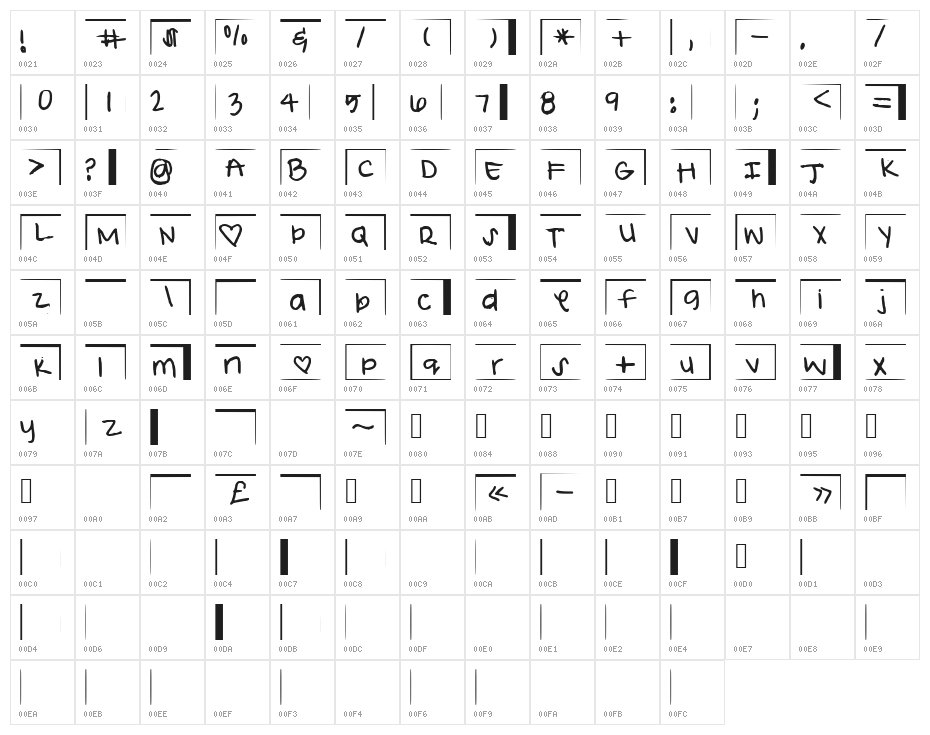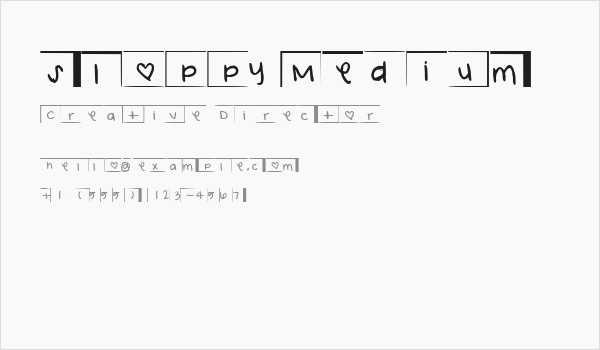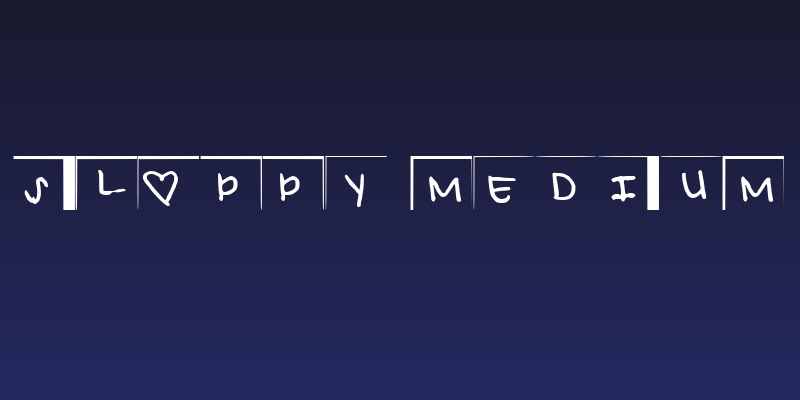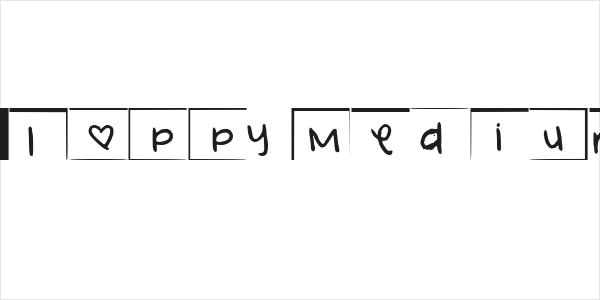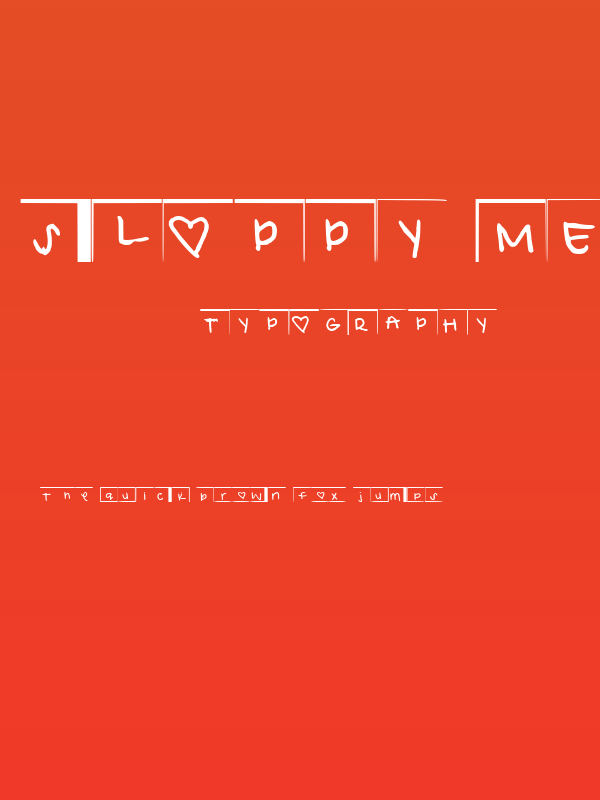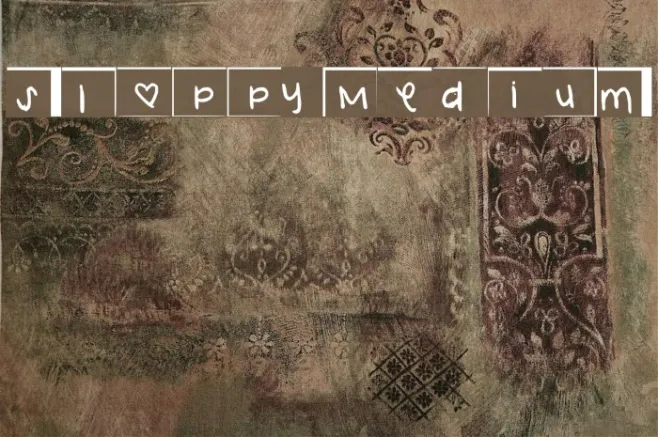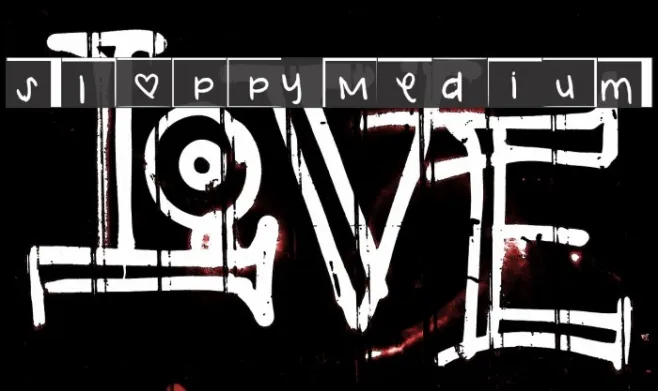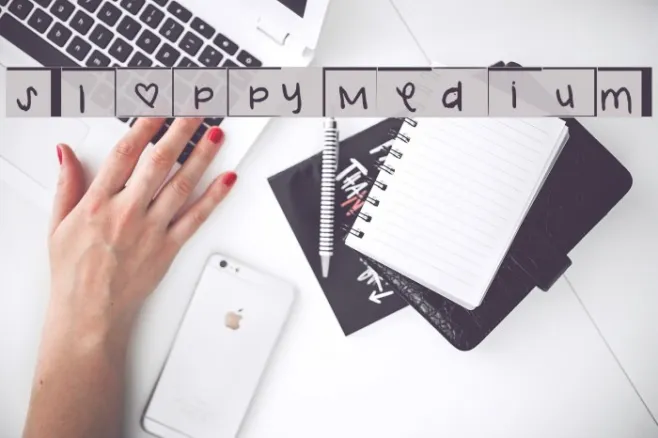
Sloppy Medium Font
Sloppy Medium Description
This font exhibits a playful and informal style, characterized by its hand-drawn appearance. The letters are unevenly weighted, with some strokes appearing thicker than others, giving it a casual and spontaneous feel. The uppercase and lowercase letters maintain a consistent style, with quirky elements such as heart-shaped 'o's and irregularly shaped 'p's and 'q's. The numbers are similarly styled, with varying stroke thickness and a slightly tilted orientation, adding to the font's whimsical nature. Special characters are creatively designed, maintaining the overall hand-drawn aesthetic.